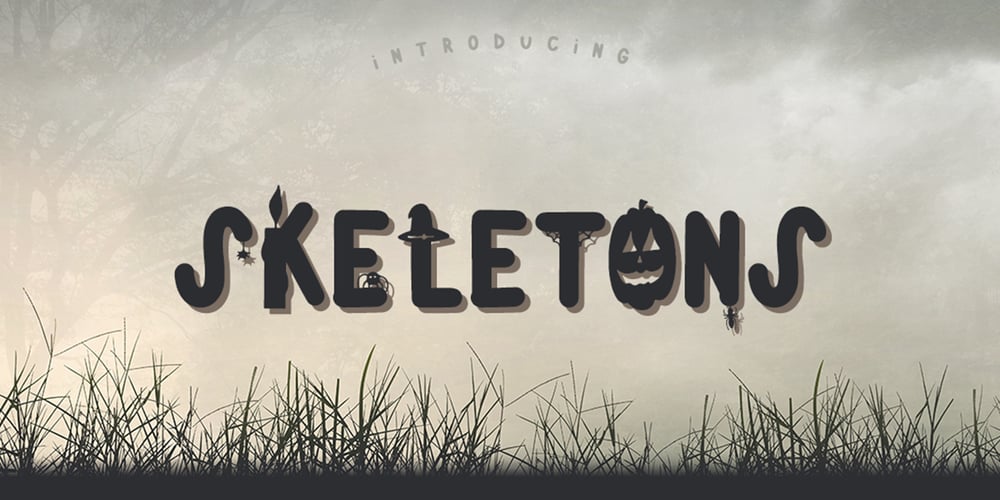
Skeletons Font Family was designed by Oksana Shudegova and published by OKSHUtypeCO. Skeletons contains 1 styles and family package options. Skeletons – a new fresh handmade calligraphy font.Very suitable for greeting cards, branding materials, business cards, quotes, posters, and more!This font are perfect for wedding postcard. Or you can create perfect and unique design of your logo, blog, stationery, marketing, magazines and more 🙂 MULTILANGUAGE Style uppercase THANK YOU!!!